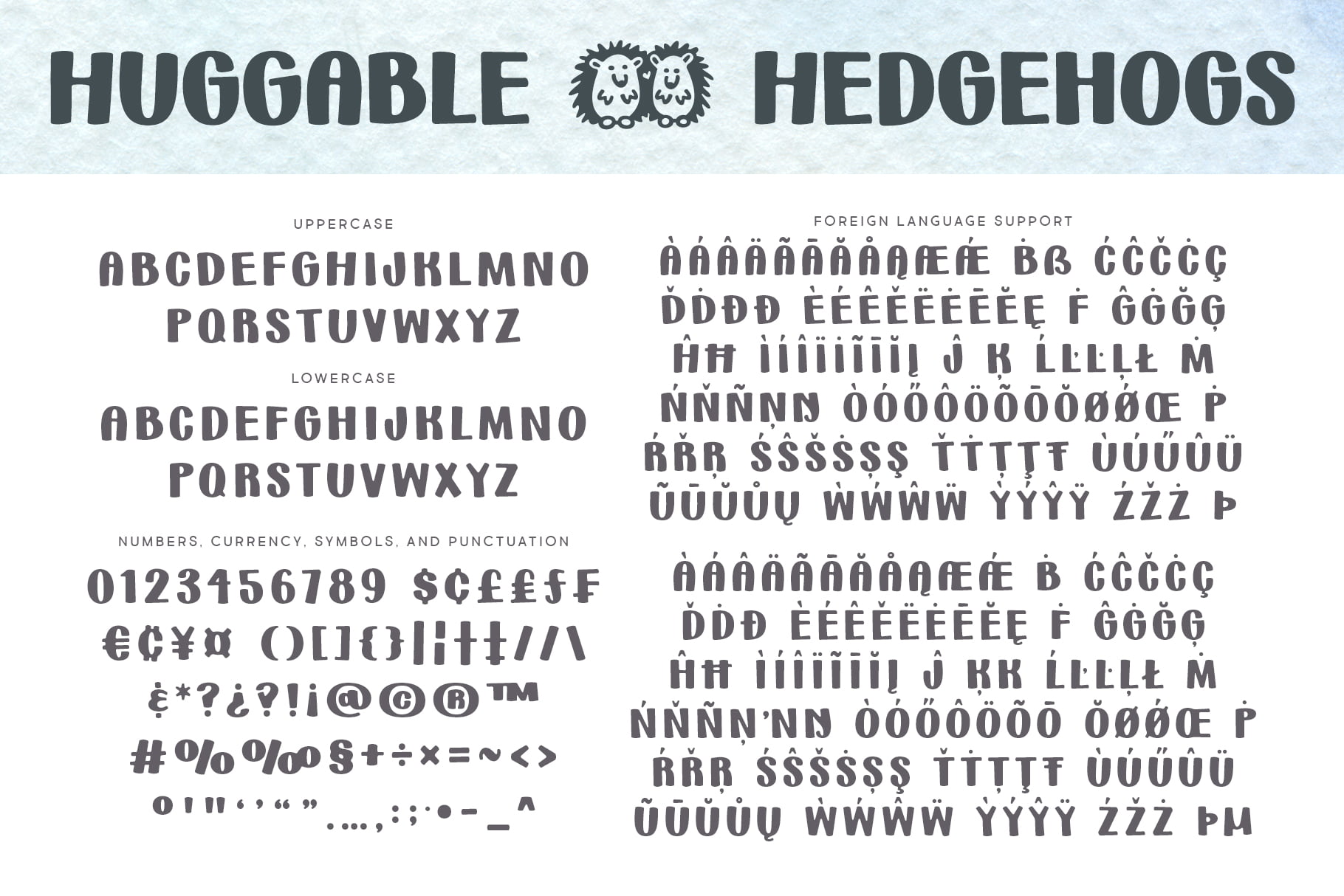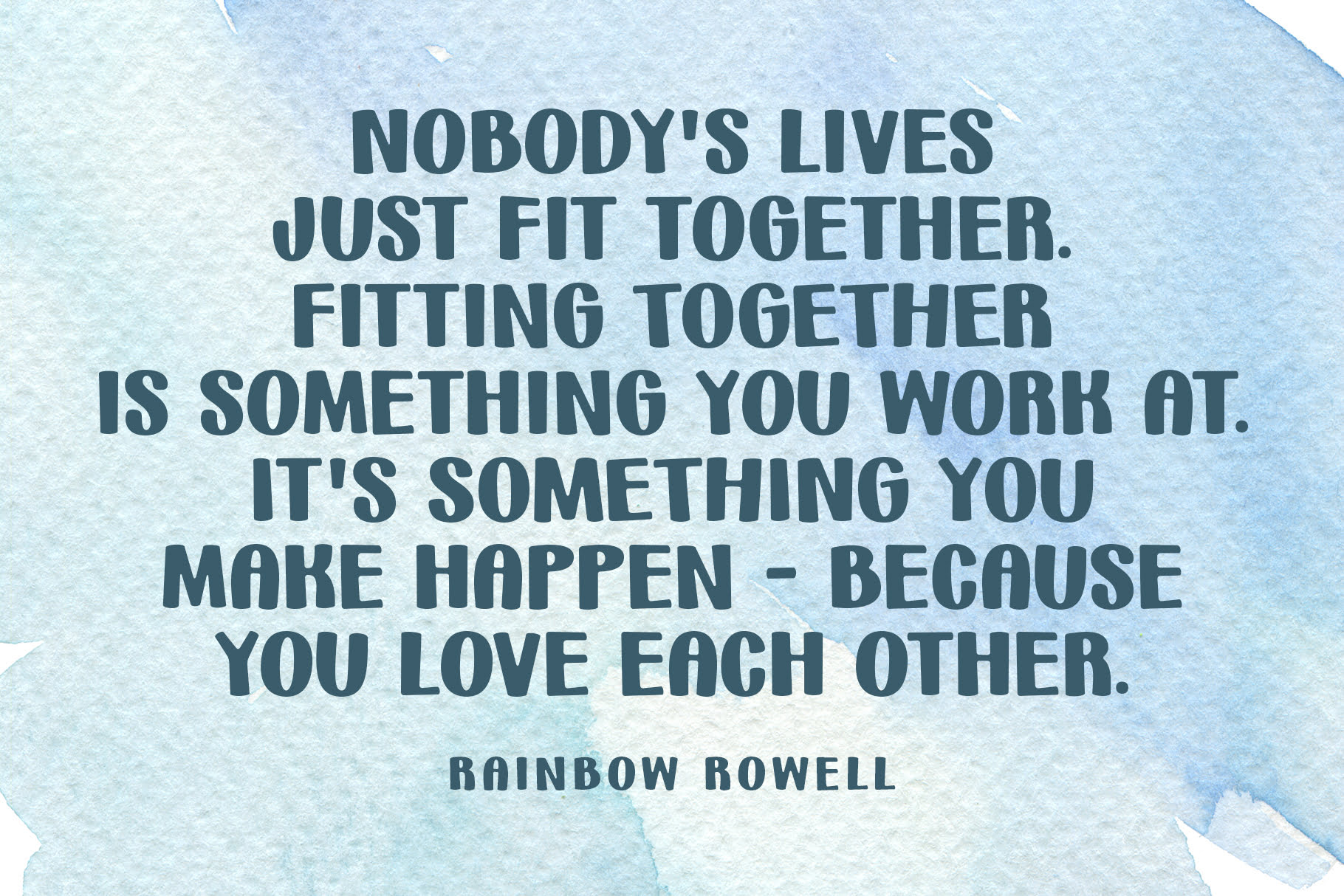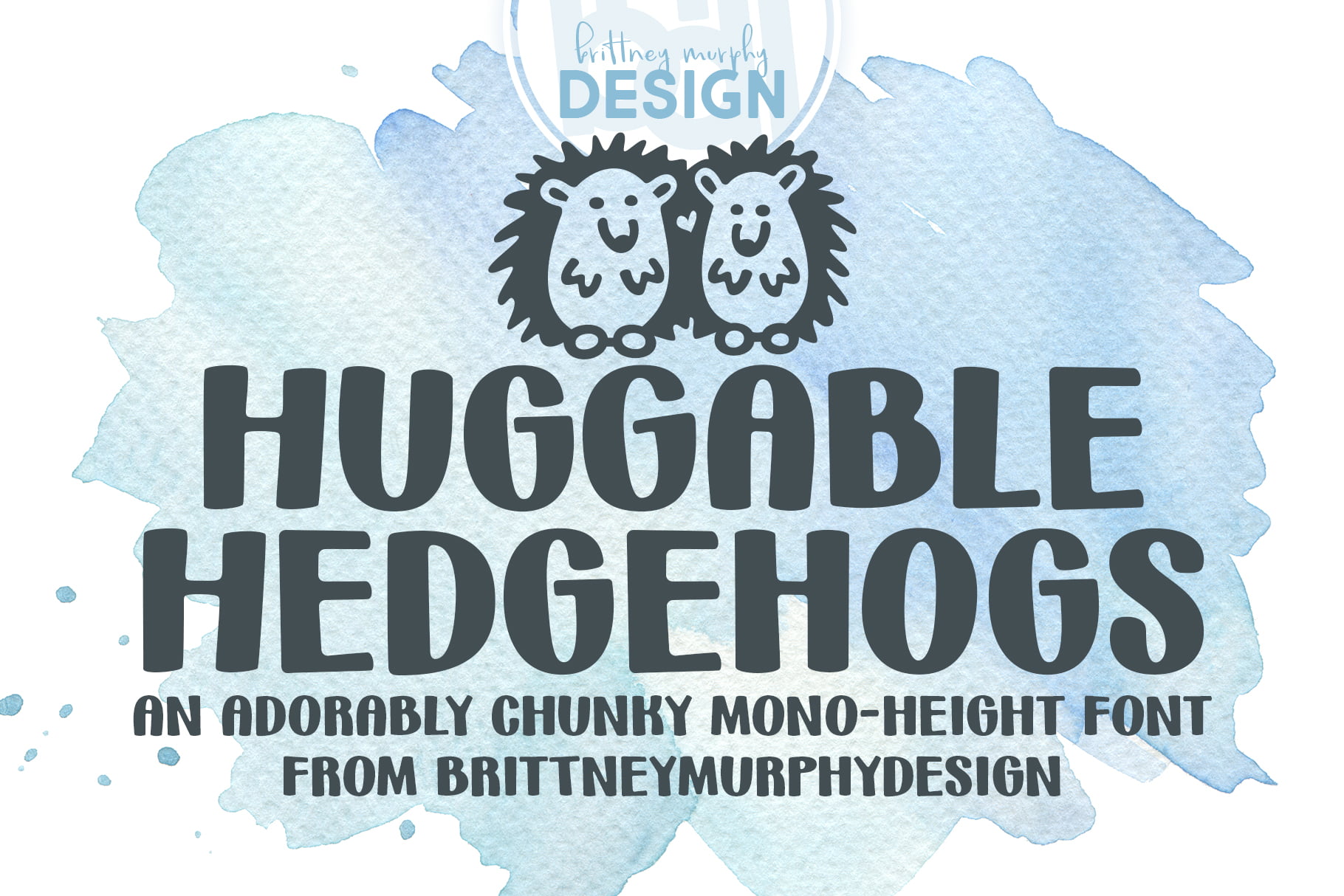
Huggable Hedgehogs
Huggable Hedgehogs Font
Hugglable Hedgehogs Regular Quote
Hugglable Hedgehogs Regular Letters
About the Huggable Hedgehogs Font
The Huggable Hedgehogs Font is an adorably chunky mono-height font. Mix and match upper and lowercase for a custom look! 🙂
Huggable Hedgehogs Demo- Preview Image
Huggable Hedgehogs Character Map